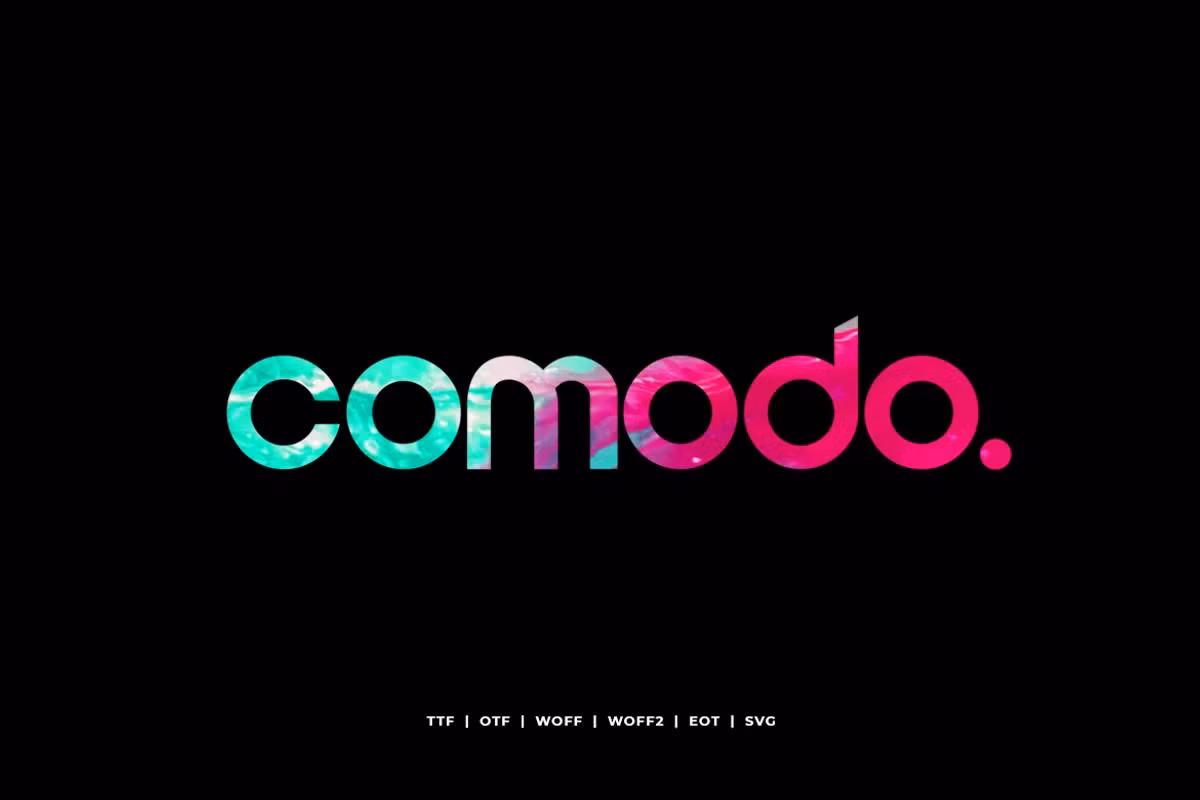
Comodo - Display Typeface Free Download is a bold and modern typeface designed for high-impact, creative designs. With its sharp lines, unique character shapes, and contemporary aesthetic, Comodo is perfect for headlines, branding, posters, logos, and any project that needs to make a strong, stylish statement.
Comodo - Display Typeface Free Download offers striking visibility with its bold, eye-catching style. Whether you're designing for a tech brand, creating a standout poster, or developing an edgy logo, this font brings energy and confidence to your typography. Download it today and make your design projects pop with the distinct, modern style of Comodo!